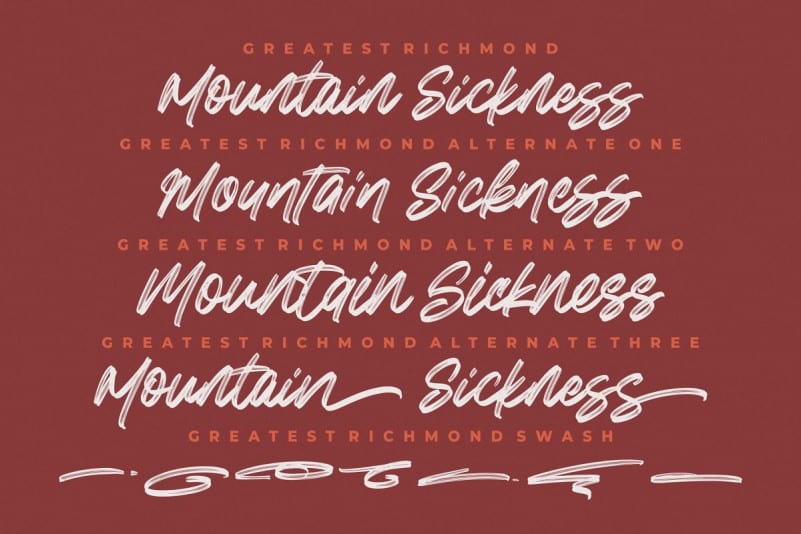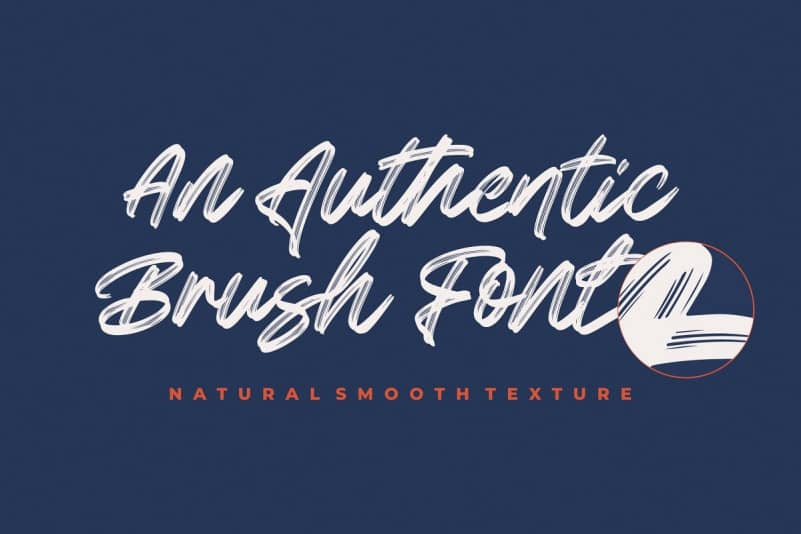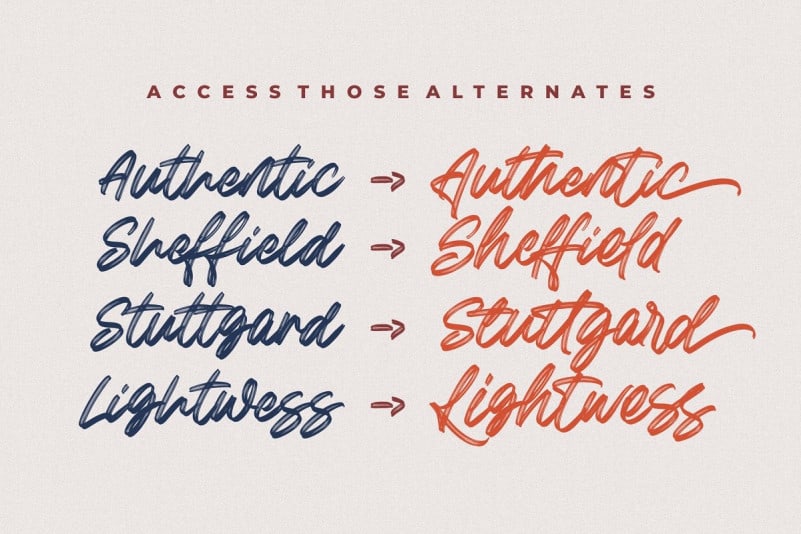
Greatest Richmond Brush Font
Greatest Richmond Brush Font is a Brush effect typeface, can make your text appear sporty, energetic, and modern! An authentic brush font with 3 alternates and 36 swashes. This font made with the perfect combining of each character. You can type by Mix & Match with alternate version to get a unique combining. It looks original and can be used for all your project needs. Each glyph has its own uniqueness and when meeting with others will provide dynamic and pleasing proximity. This font can be used at any time and any project. You can see in the presentation picture above, Greatest Richmond looks stylish and wildly on design projects.